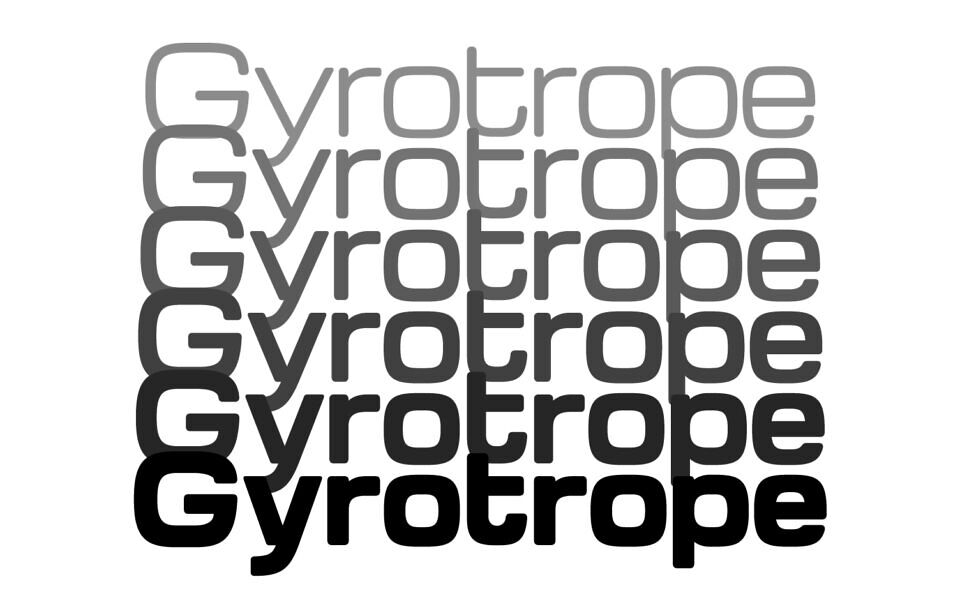
Gyrotrope Font
Gyrotrope is a wide, rounded, geometric sans-serif inspired by typefaces of the 1960s such as Microgramma and Eurostile, as well as contemporary takes on the genre such as Vernon Adams’ Michroma.
Like Gyrochrome — a direct derivative of Michroma that was my first attempt at a typeface in this genre — Gyrotrope exists because I needed a 1960s-futurist typeface for a project, in a rounded style and a range of weights, on a DIY budget.